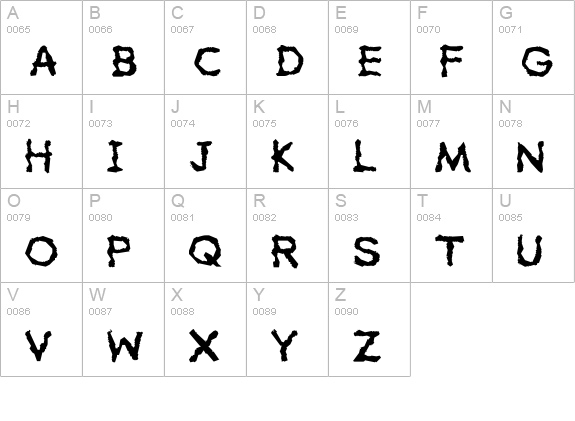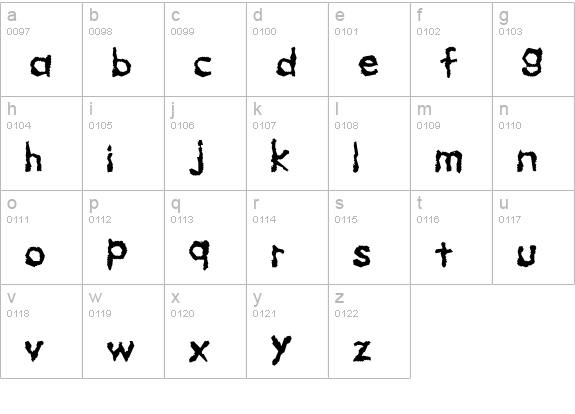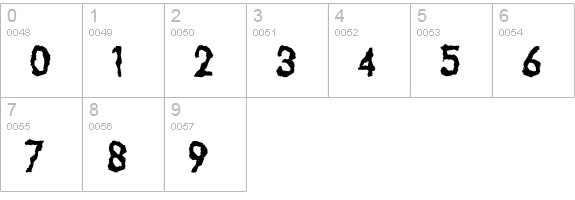
Drunker (sRB) Font Details
Introducing Drunker (sRB) font - a unique and eye-catching typeface that exudes a playful and energetic vibe. This font is perfect for adding a touch of fun and whimsy to your designs. With its bold and dynamic letterforms, Drunker (sRB) font is sure to make a statement and capture the attention of your audience. What makes Drunker (sRB) font even more appealing is that it is available for free download at FontsMarket.com. Yes, you read that right - this fantastic font can be yours without any cost. So why wait? Add Drunker (sRB) font to your collection today and let your creativity shine!